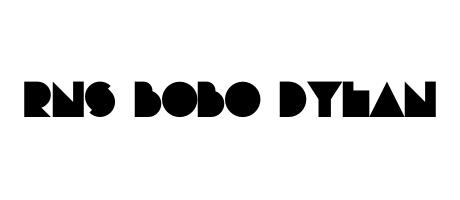
RNS Bobo Dylan
RNS Bobo Dylan is a bold, geometric sans-serif font. Its chunky, uppercase letters have a slightly irregular, almost hand-cut feel. The forms are strong and solid, with abrupt transitions and varying letter heights creating a unique, playful yet striking graphic quality. The overall effect is modern and slightly quirky.